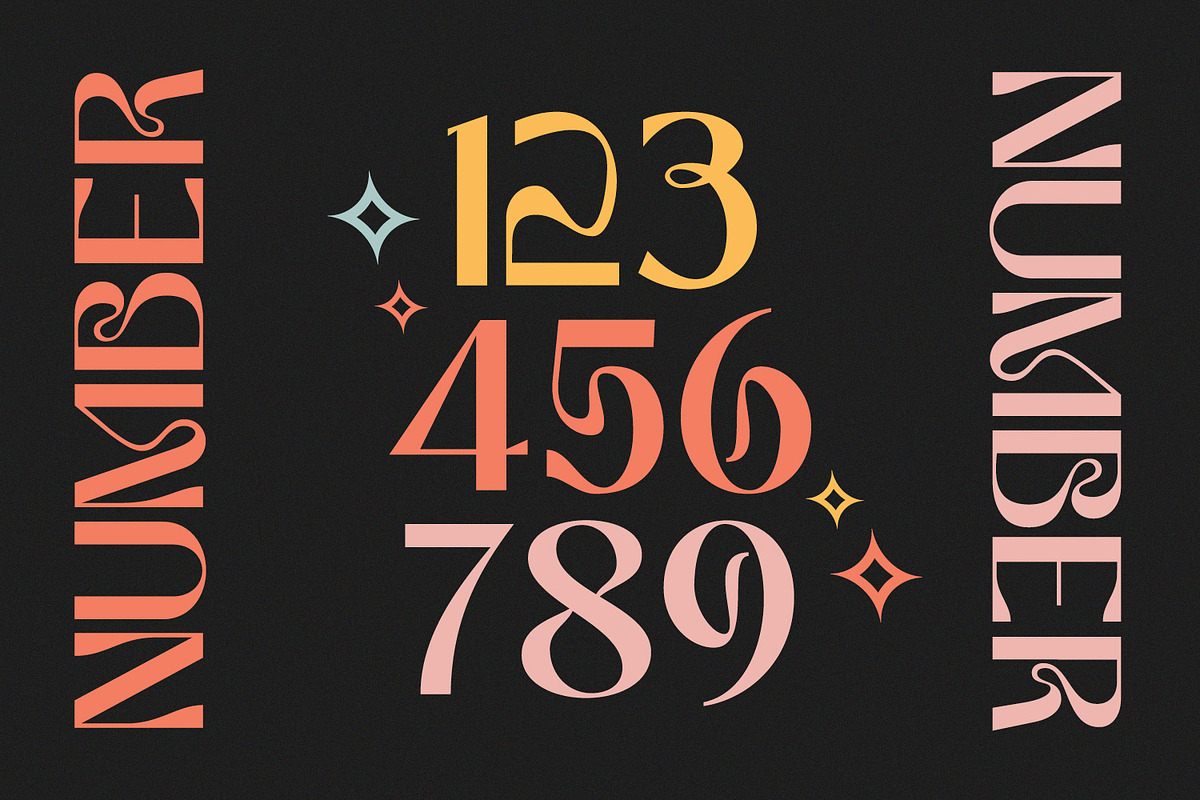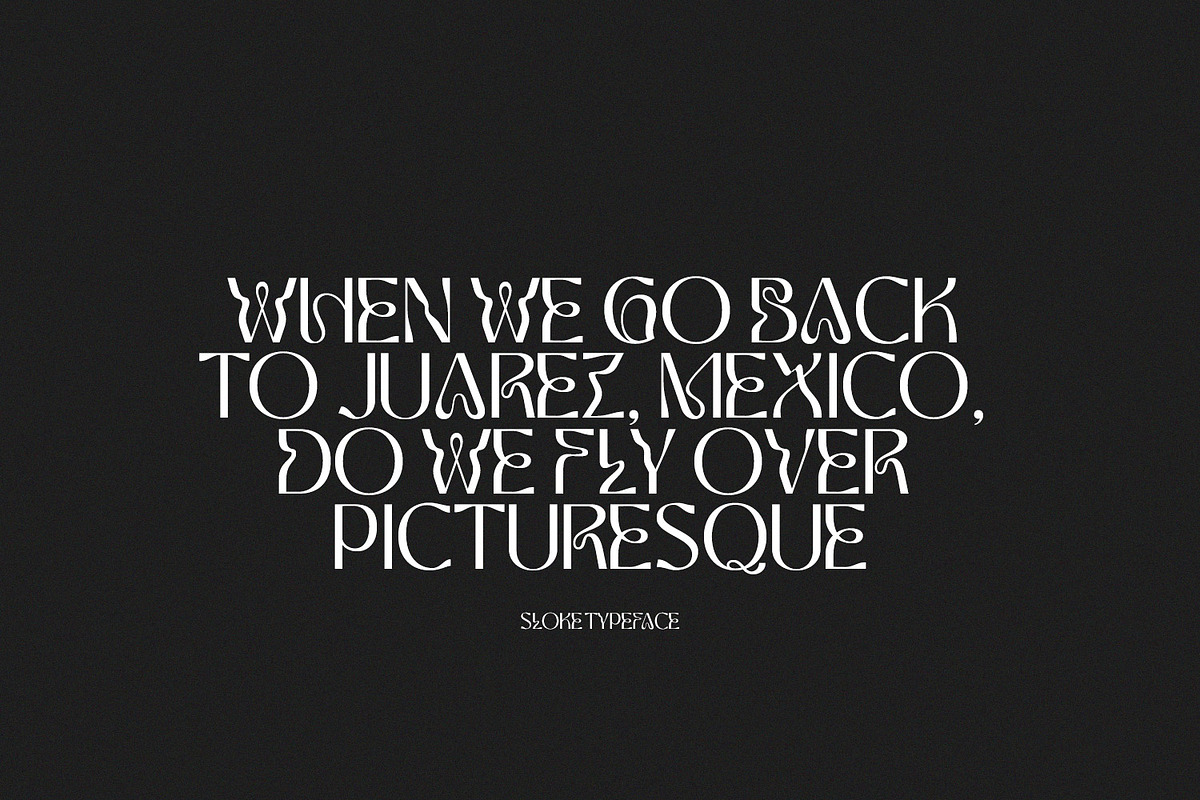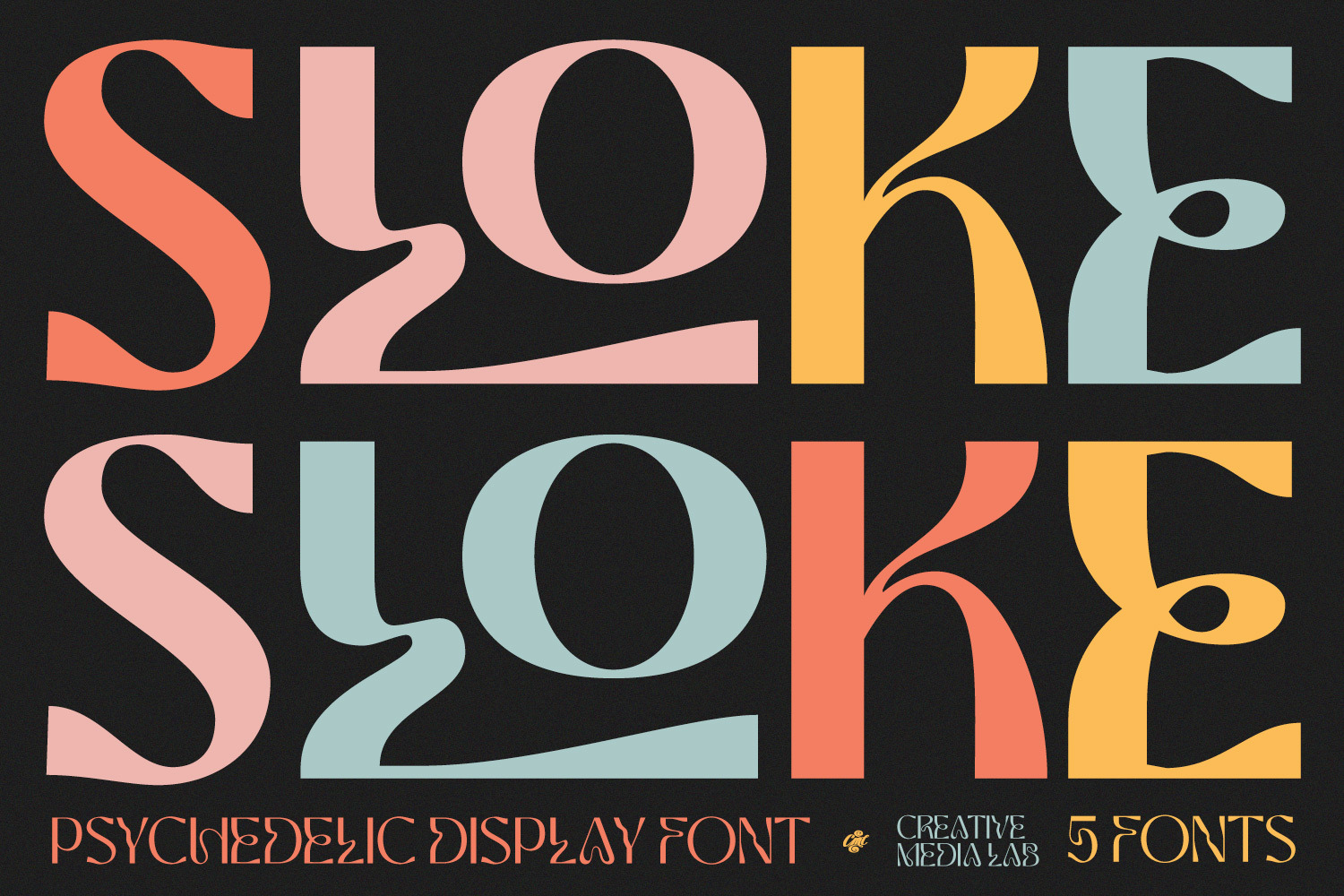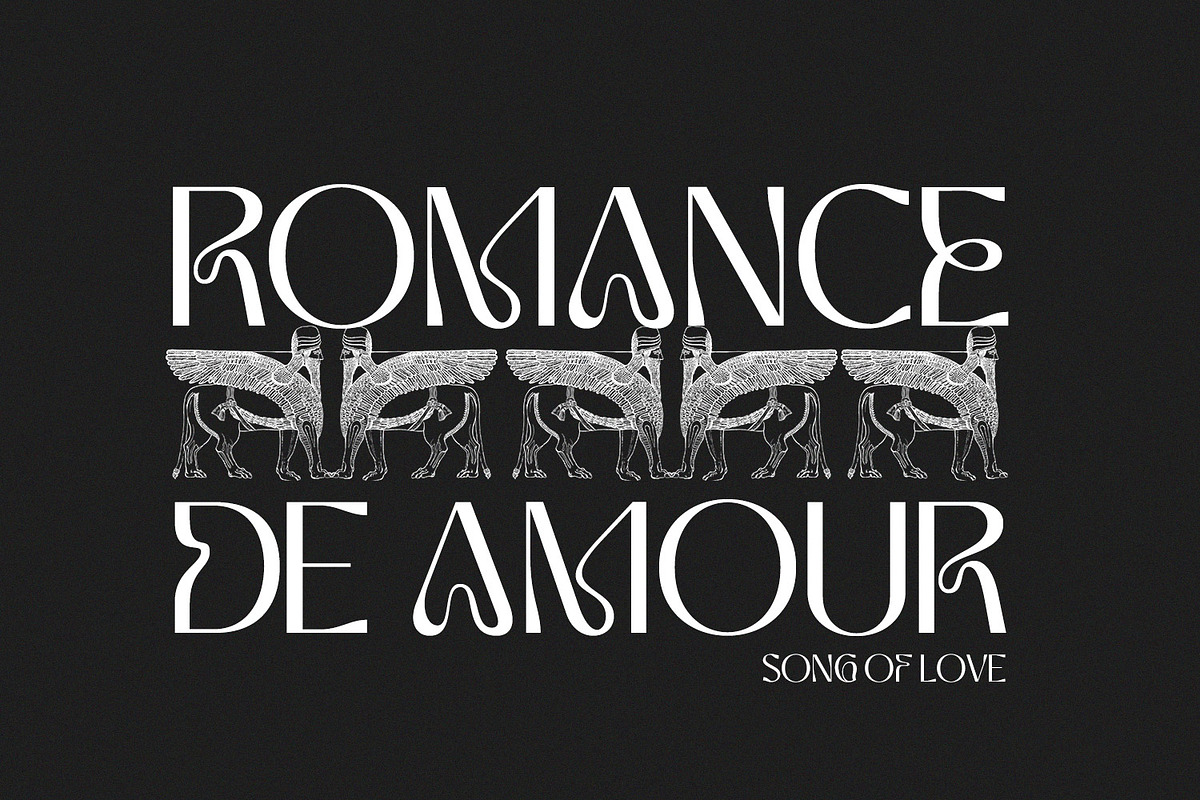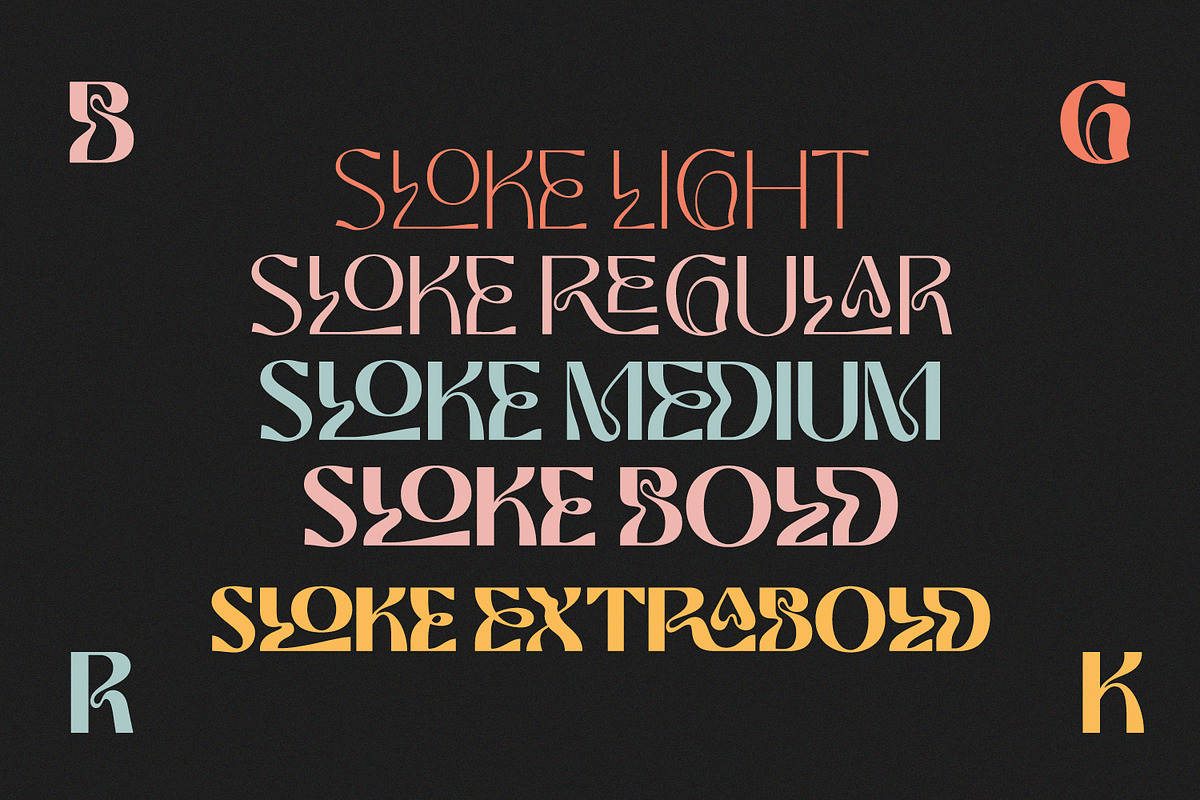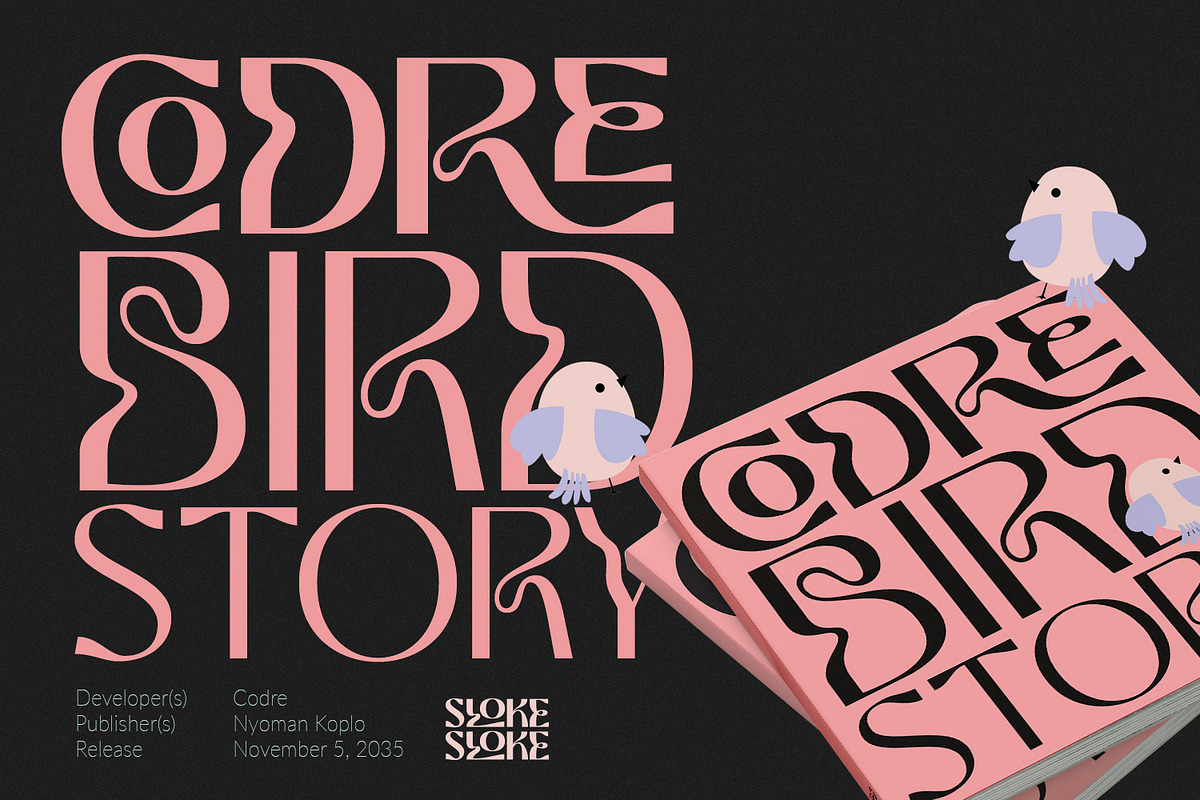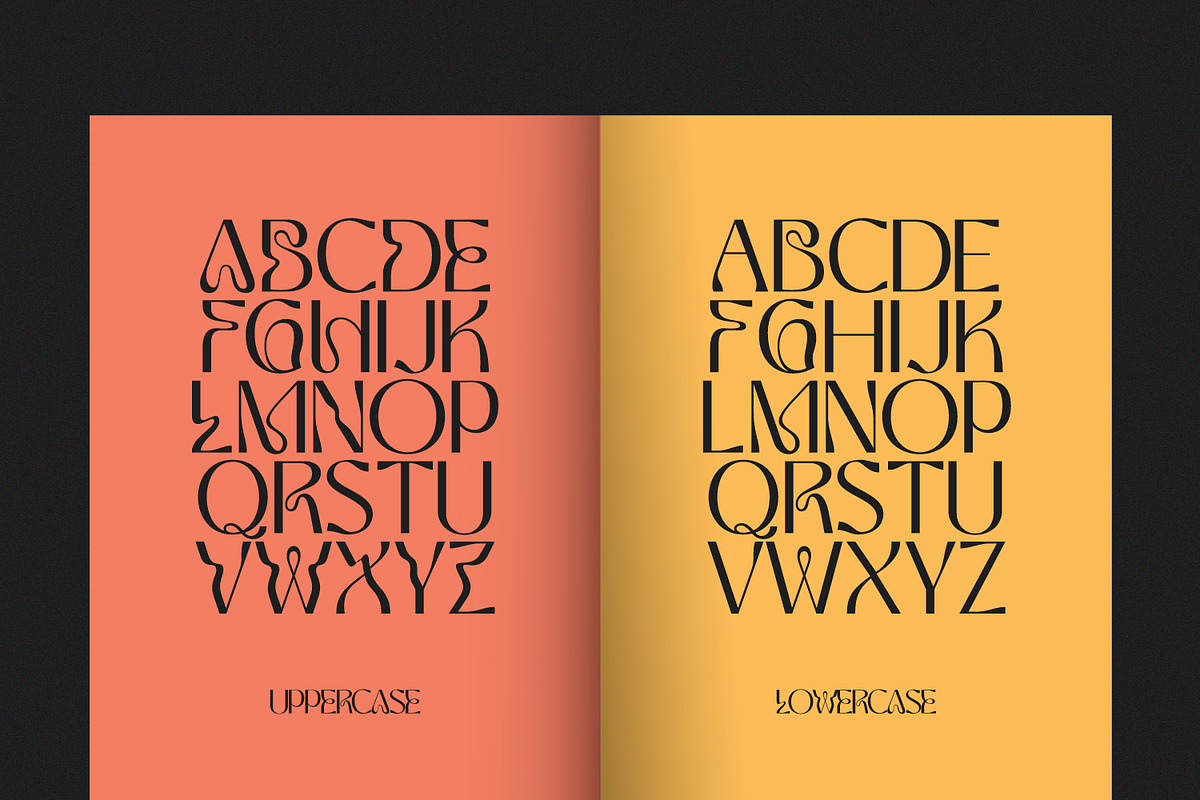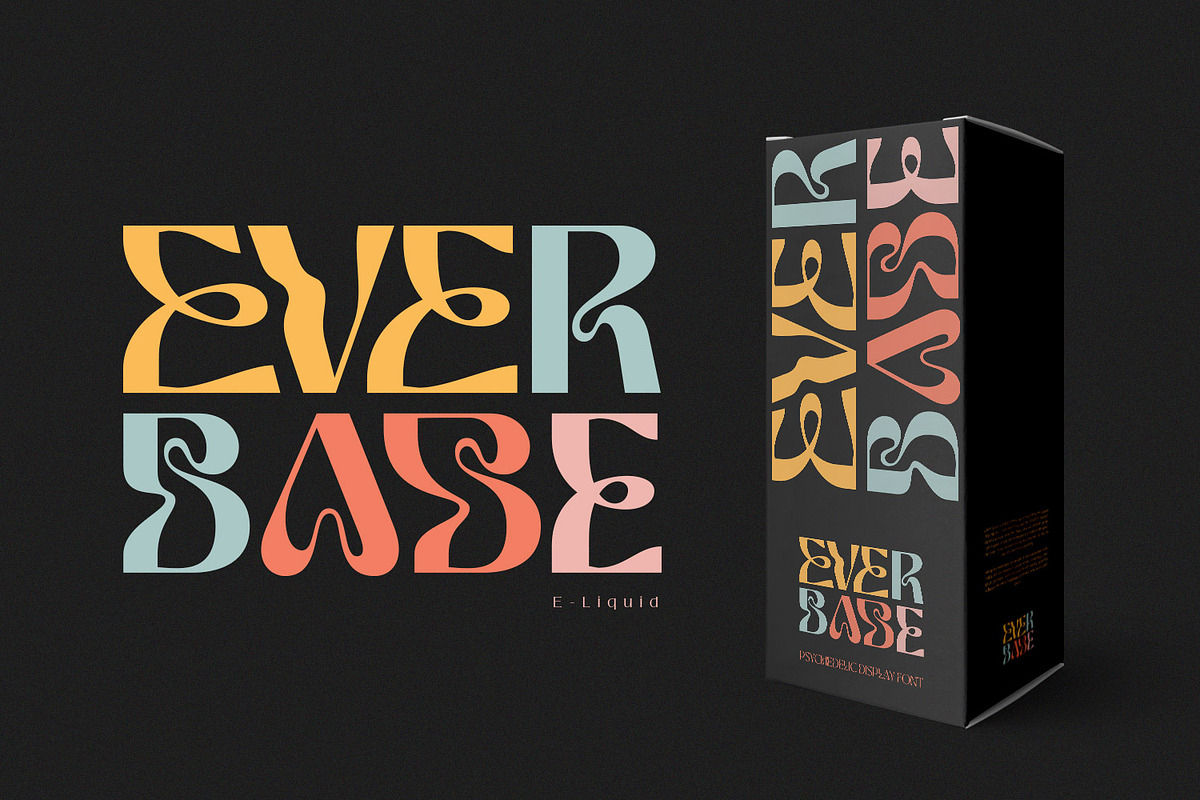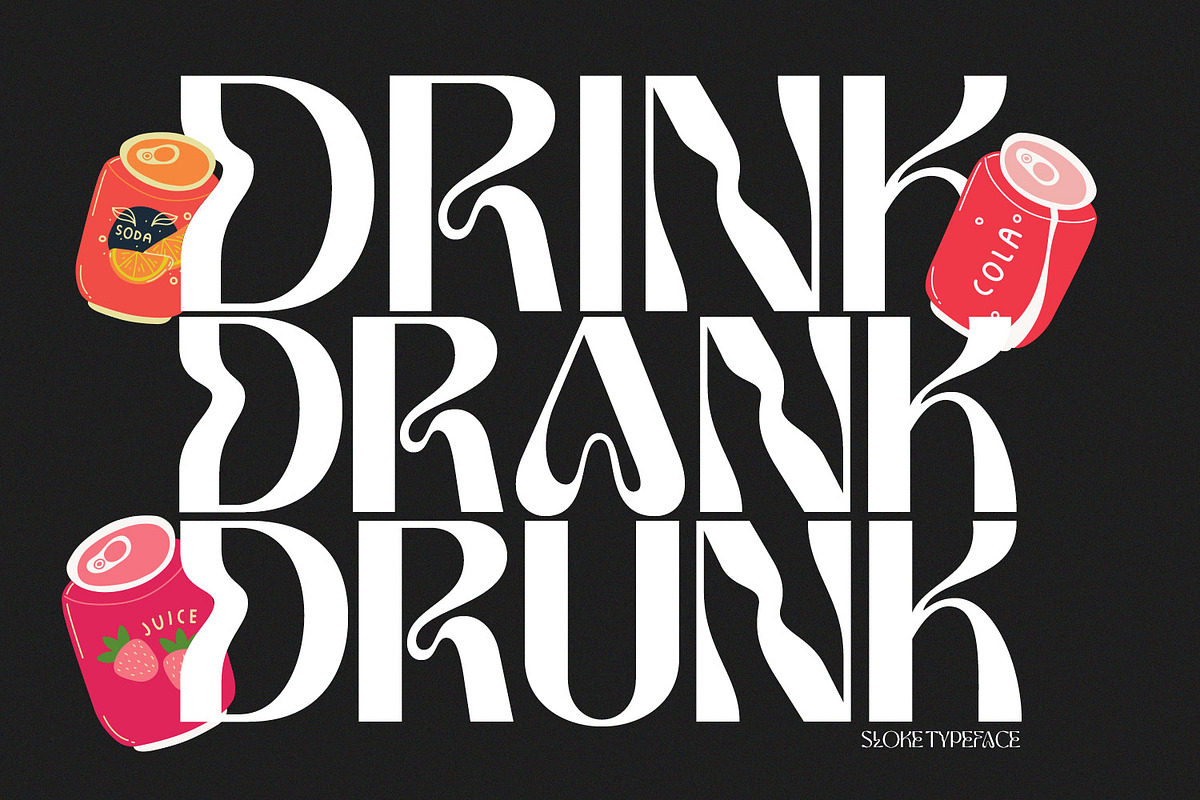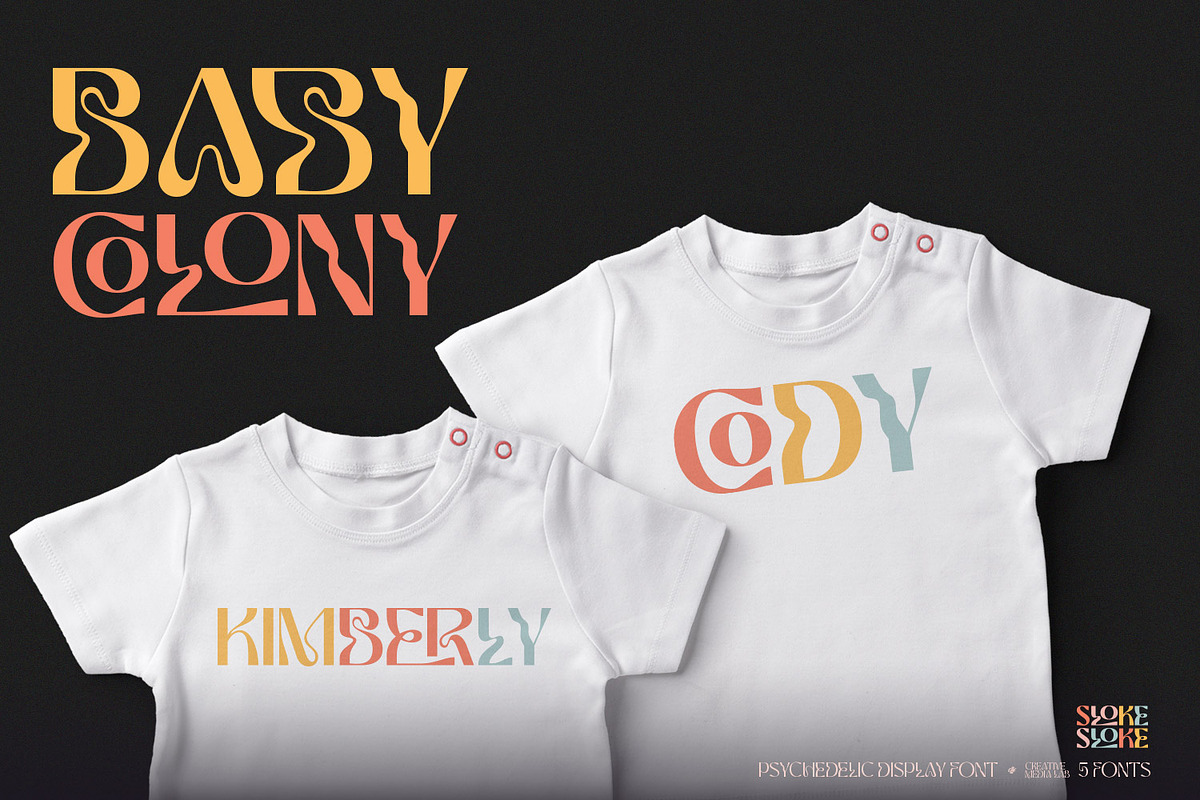
Sloke - Psychedelic Display font
Introducing Sloke, our new psychedelic-style font. All capital alphabet with a psychedelic style. Consist of 5 weights and tons of ligatures. Sloke will add some fun vibes to your designs. This font is perfect for t-shirt design, book covers, titles and many more.